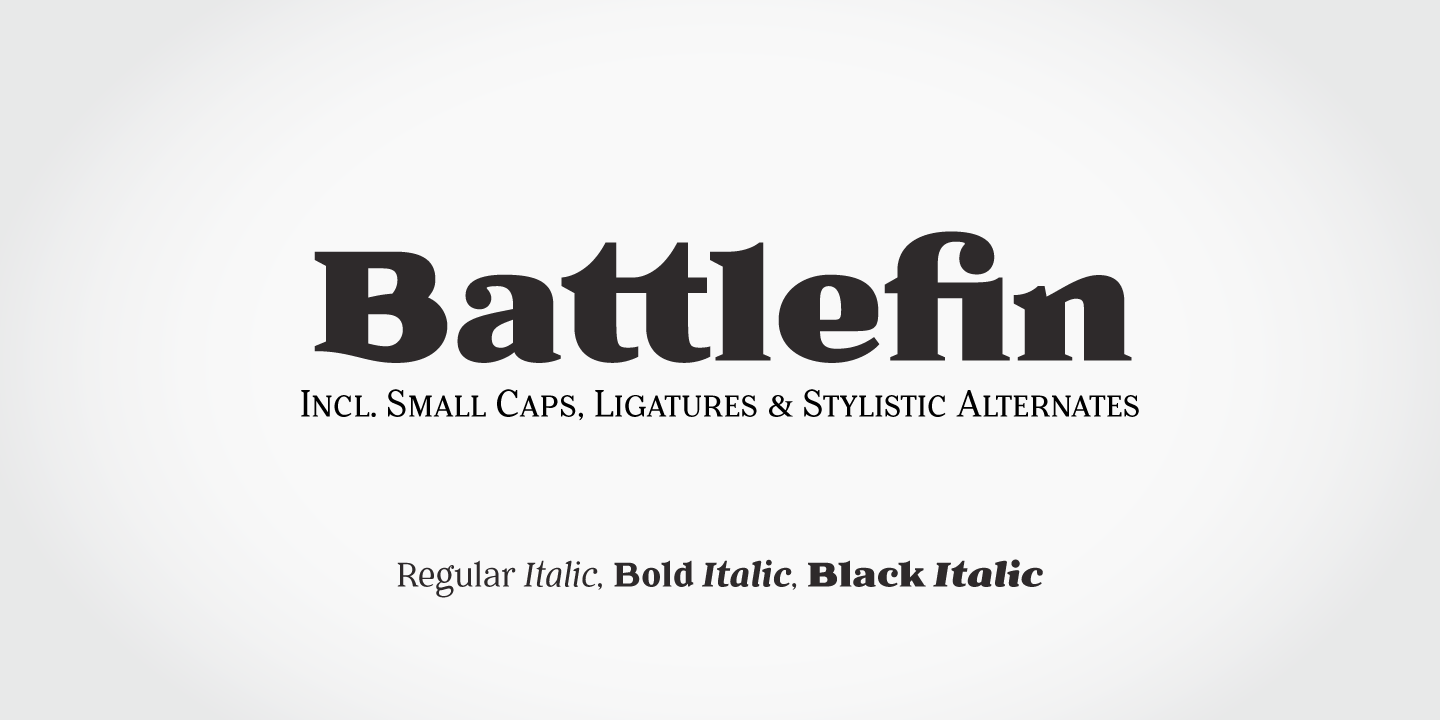
Battlefin Font is perfect for marine combat games, naval warfare graphics, submarine themed materials, military marine branding, aquatic battle designs, oceanic strategy games, underwater combat signage, and tactical maritime typography.
What makes Battlefin Font exciting is its aggressive maritime character that embodies naval warfare and aquatic combat through sharp letterforms and underwater tactical appeal. This powerful typeface features combat-inspired construction, marine details, and tactical personality that captures the essence of naval battles and underwater warfare, making it ideal for projects seeking to communicate maritime strength, aquatic dominance, and naval combat prowess with authentic marine warfare appeal and tactical sophistication.
The Battlefin Font family includes Regular, Medium, and Bold weights, each maintaining the characteristic marine combat intensity and naval warfare appeal that define this distinctive typeface's tactical personality and aquatic sophistication.
Battlefin Font Free Download offers designers access to a typeface that masterfully captures the spirit of naval warfare and marine combat excellence. This tactical font brings authentic maritime combat aesthetics to contemporary projects, making it essential for naval gaming companies, marine military organizations, and aquatic warfare brands targeting audiences fascinated by naval strategy and underwater combat scenarios. The font's combat construction and marine details ensure immediate recognition of tactical strength while its distinctive character creates powerful connections among individuals passionate about naval warfare and marine military culture. Whether designing submarine warfare games, naval combat materials, or marine tactical communications, this font delivers the maritime authenticity and combat sophistication that dedicated naval enthusiasts expect. Its marine foundation and warfare symbolism make it indispensable for projects celebrating naval heritage, marine combat excellence, and the strategic complexity of underwater warfare, ensuring communications resonate with audiences who value the tactical precision, maritime strength, and naval sophistication that define authentic marine combat culture and underwater military operations.